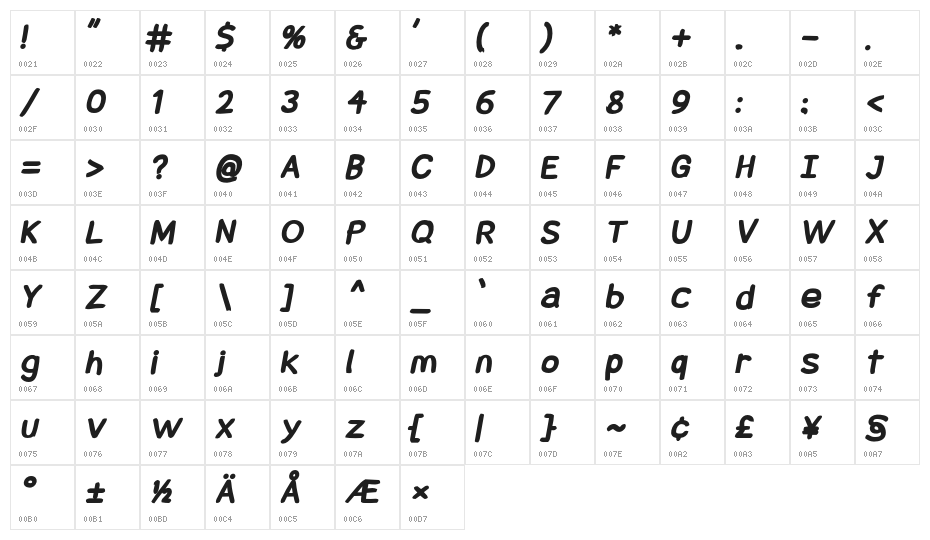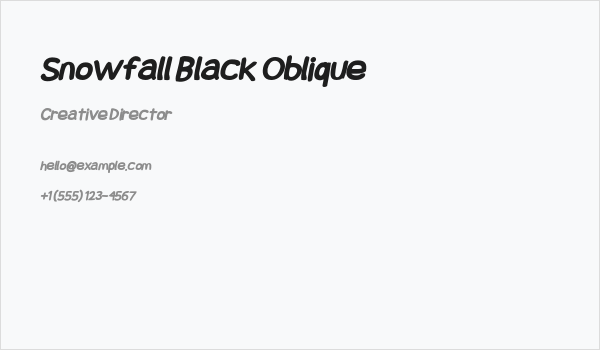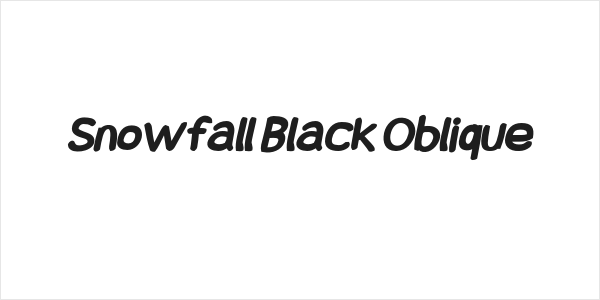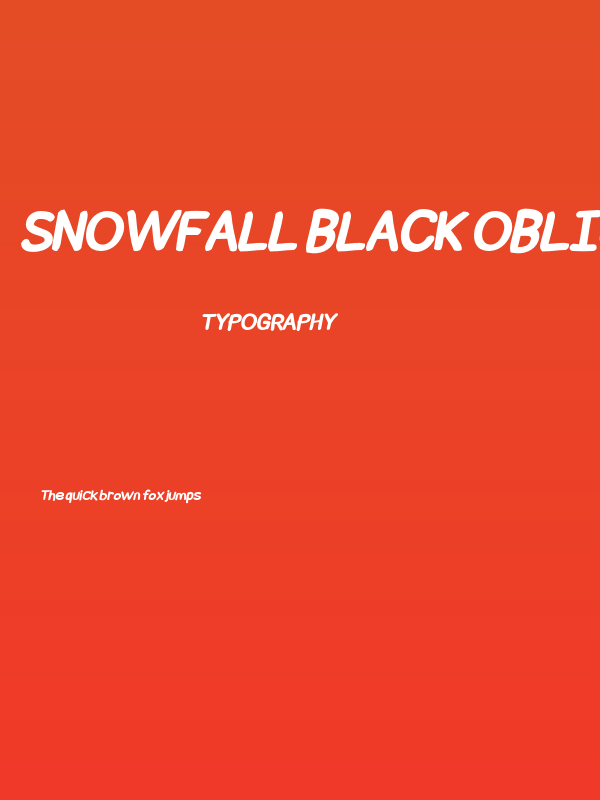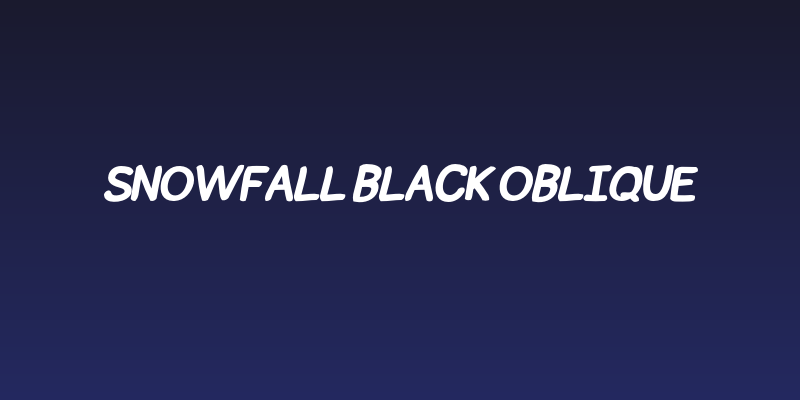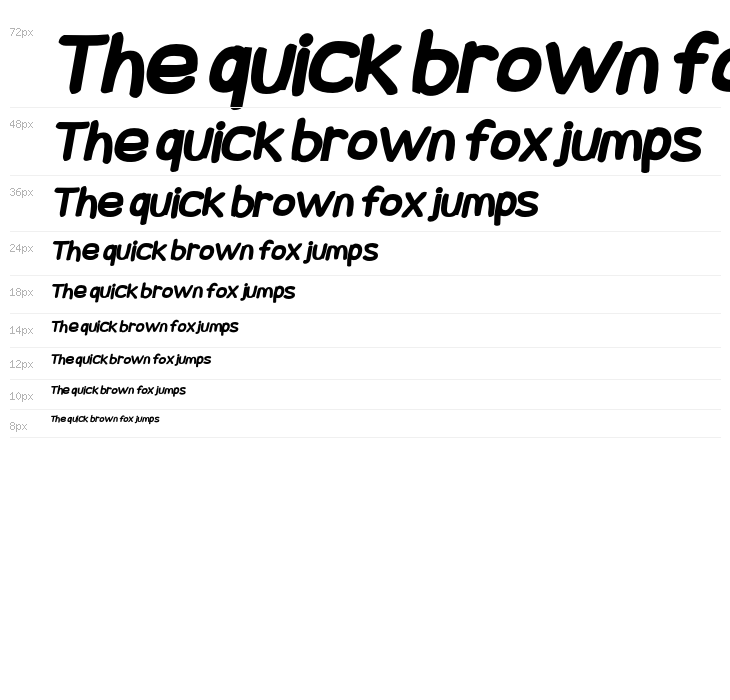
Snowfall Black Oblique Font
Snowfall Black Oblique Description
This font features a bold and dynamic style with a playful, handwritten appearance. The characters are slightly slanted, giving an oblique effect that adds to its energetic and informal look. The strokes are thick and rounded, providing a sense of warmth and approachability. The uppercase and lowercase letters maintain a consistent style, with smooth curves and a uniform thickness throughout. The numbers and special characters are designed to match the overall aesthetic, ensuring a cohesive look across all elements. This font is ideal for projects that require a friendly and engaging tone.
| Overall Style | Playful, Informal |
| Proposed Projects | Great for children's books, playful branding, casual invitations, and social media graphics. |